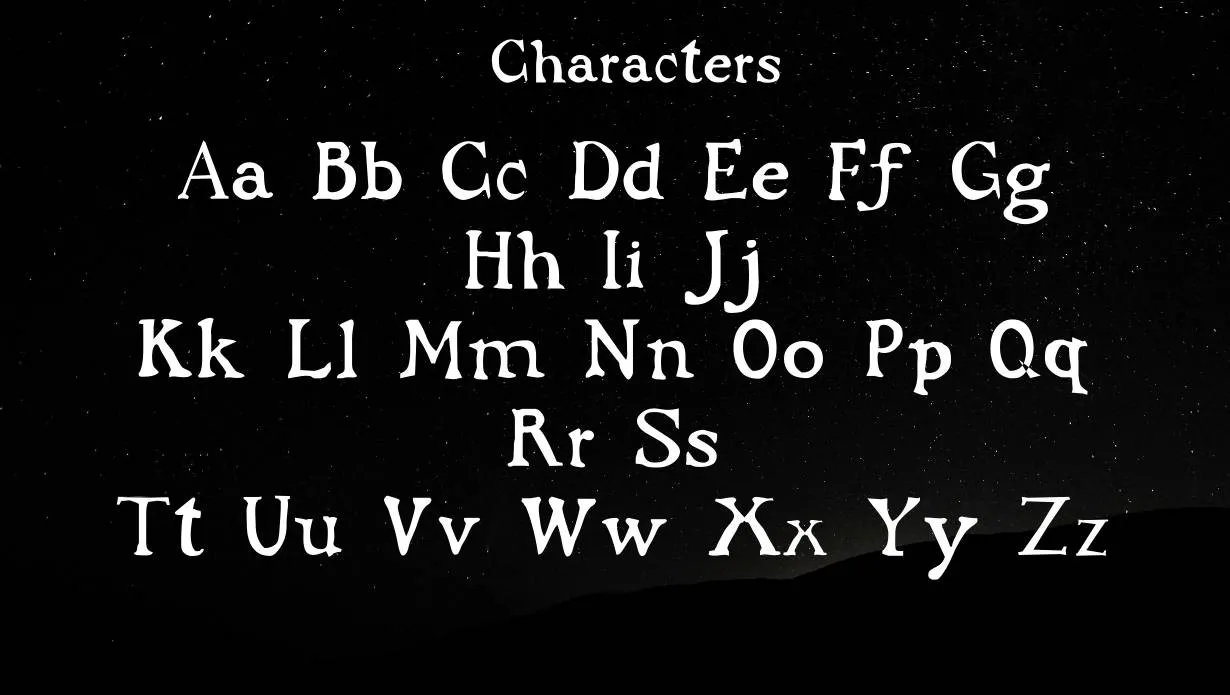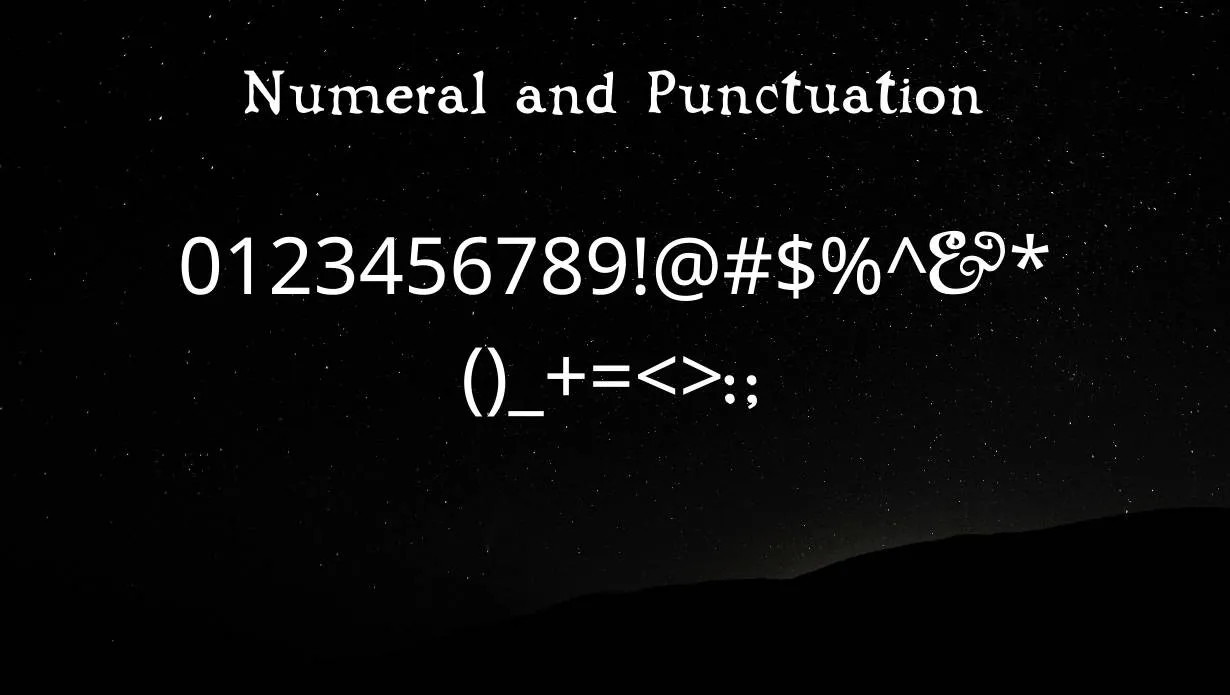
Today I am going to tell you about a unique and elegant texture. The name of that stunning and unique Typeface is Dark Ages Font. You can easily download this typeface from our website in Open-type and True-type formats.
This typeface was constructed by a popular typographer Peter Olexa. This typeface is perfect to use in combination with a real simple font.